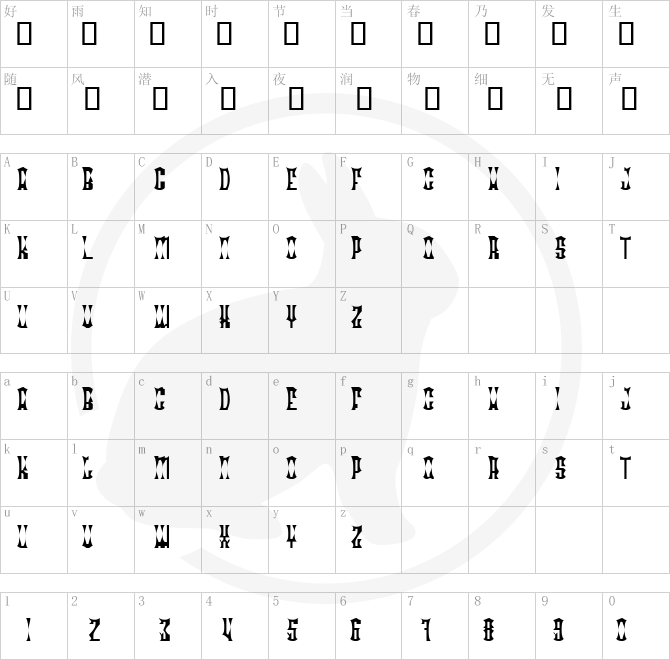
- Font Name:Radonator Diablo
Radonator-Diablo-Normal.ttf is a very beautiful artistic font, Radonator-Diablo-Normal.ttf is widely used in the design and printing of various books and pictures,Radonator-Diablo-Normal.ttf has a strong visual impact,Radonator-Diablo-Normal.ttf is a commonly used font in newspapers, magazines and books, and is used in posters, e-commerce Poster design, store design, logo design, font design and other fields.Radonator-Diablo-Normal.